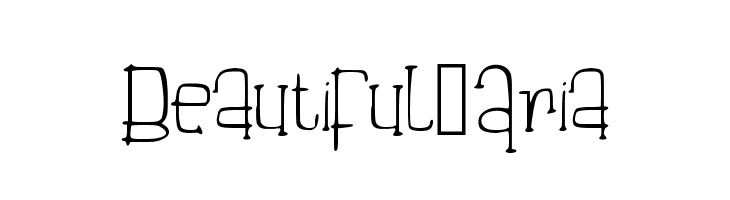
( Fonts by Alyssa Wittig )
A playful, casual handwritten font with an organic flow.
( volcanolam.comxa.com )
A bold, playful handwritten font with dynamic strokes and a casual feel.
( Fonts by ppfflop )
A playful, casual handwritten font with rounded, consistent strokes.
( 100% Free )
A whimsical, hand-drawn font with elongated, dynamic characters.
( 100% Free - www.aronveraart.nl )
A playful, bold handwritten font with a casual and friendly style.
( Fonts by Laurene )
A playful, handwritten font with irregular strokes and a casual style.
( Fonts by Karmelle Despain )
A playful, casual handwritten font with irregular strokes and a friendly feel.
( Fonts by Art Martinez )
A bold, handwritten font with a casual and playful style.